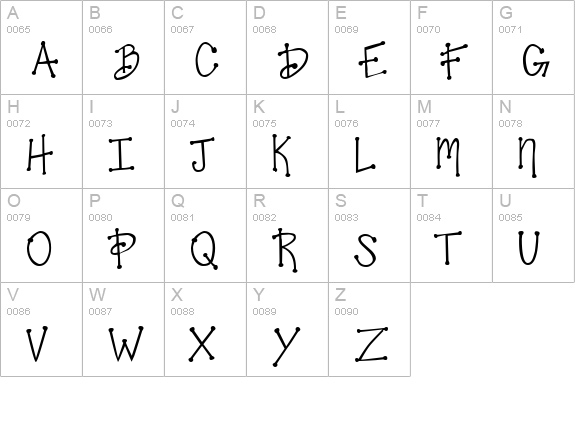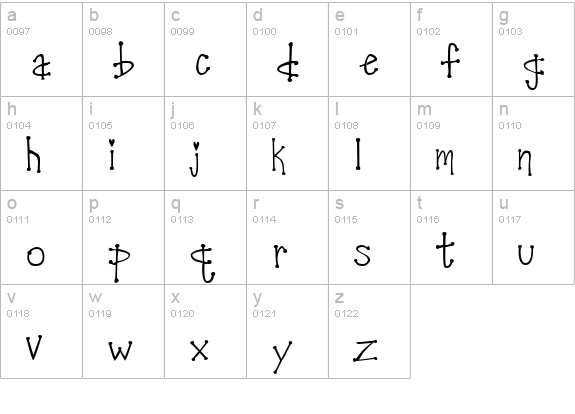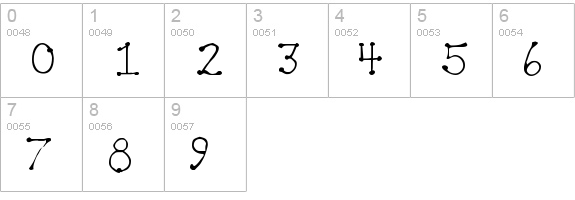
Desiree's Cool Dots Font Details
Introducing Desiree's Cool Dots font - a playful and modern typeface that is sure to add a touch of fun to your projects. This whimsical font features charming dots within each letter, giving it a unique and eye-catching appeal. Whether you're designing a children's book, party invitation, or logo, Desiree's Cool Dots font will bring a sense of joy and creativity to your work. Best of all, Desiree's Cool Dots font is completely free to download at FontsMarket.com. This means you can easily access this delightful font and use it in your personal and commercial projects without any restrictions. Don't miss out on adding this versatile and cheerful font to your collection today!